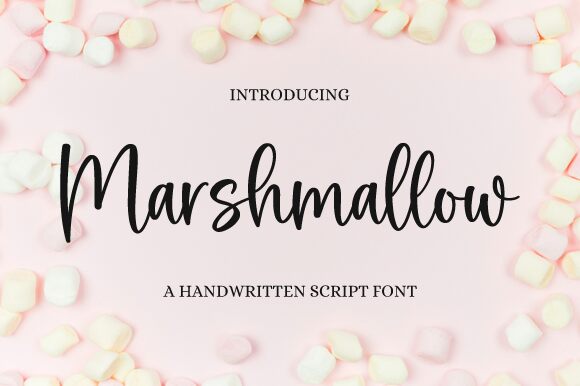
Marshmallow
Marshmallow, envisioned and brought to life by Graphix Line Studio, encapsulates the essence of handcrafted artistry in typography. This handwritten font exudes an organic charm with its fluid, cohesive strokes that effortlessly mimic the spontaneity of human penmanship. Its aesthetic appeal lies in the gentle variability of line thickness, lending a touch of elegance and personality that can elevate any creative project.
The versatility of Marshmallow is evident in its potential to add a personal, bespoke feel to invitations, branding materials, social media graphics, and more. The font's casual yet sophisticated style makes it an ideal candidate for designs seeking to convey warmth and approachability without sacrificing refinement.
Embrace the delightful character of Marshmallow for your next design endeavor and let this font transform your message into a captivating visual narrative.